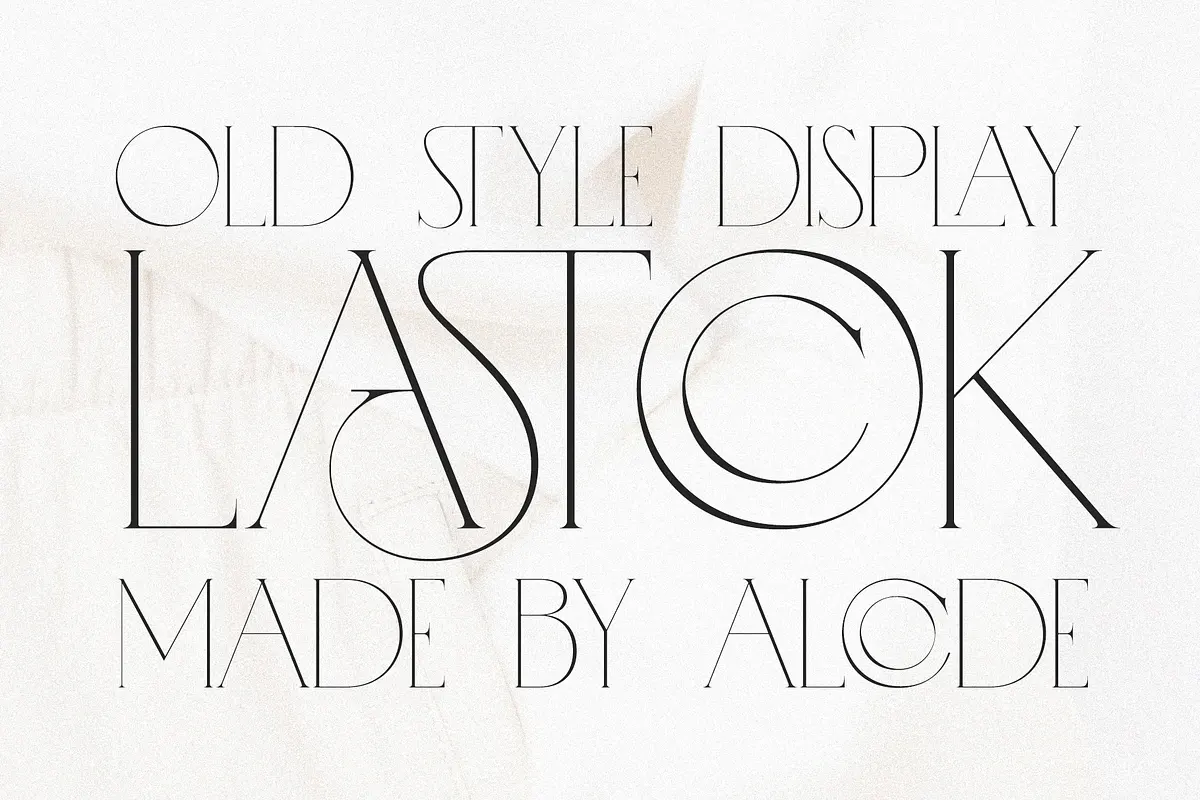
Make your headlines impossible to ignore with Lastock Display Font Free Download — a powerful, bold typeface built for maximum visual impact. This display font delivers modern strength and sharp elegance, making it perfect for branding, editorial titles, posters, packaging, and high-profile advertising.
With its clean lines, commanding presence, and strong contrast, Lastock ensures that every word feels like a statement. It includes a full character set with uppercase and lowercase letters, numbers, punctuation, and multilingual support — giving you all the flexibility you need for bold, professional typography.